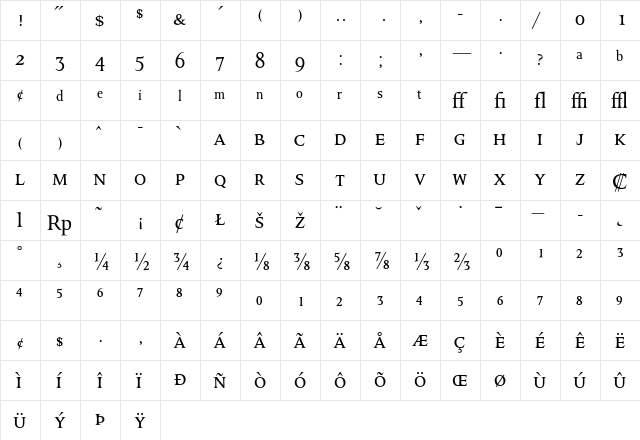
Octavian MT Expert
Design Context for Octavian MT Typeface
Octavian MT offers clean, dependable letterforms without strong stylistic allegiance, making it a practical choice for designers who need flexibility.